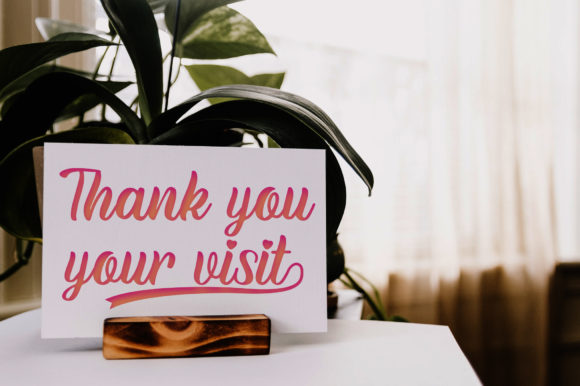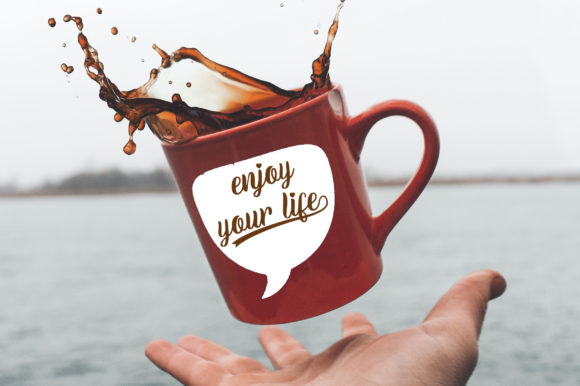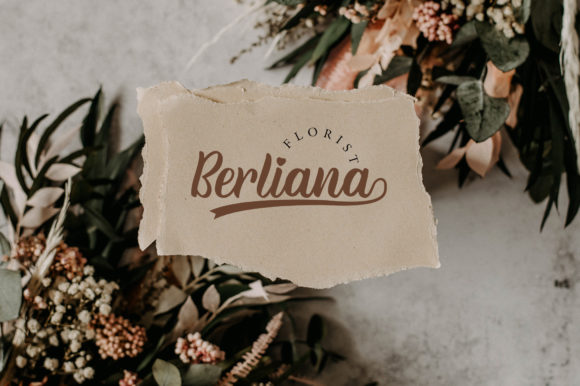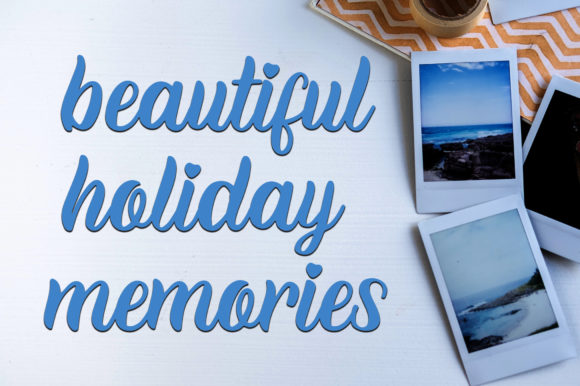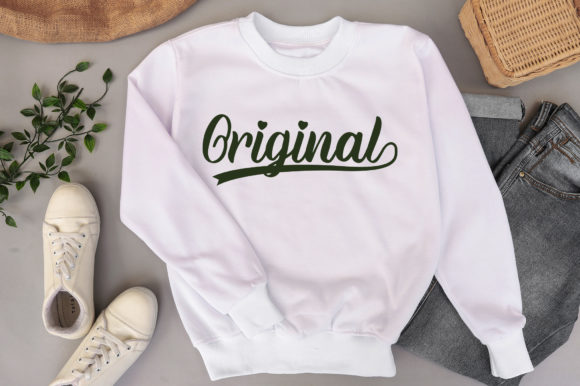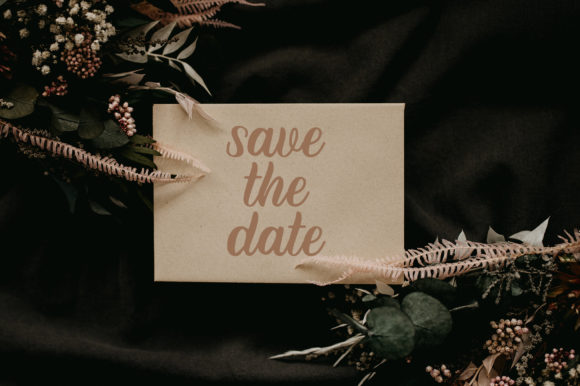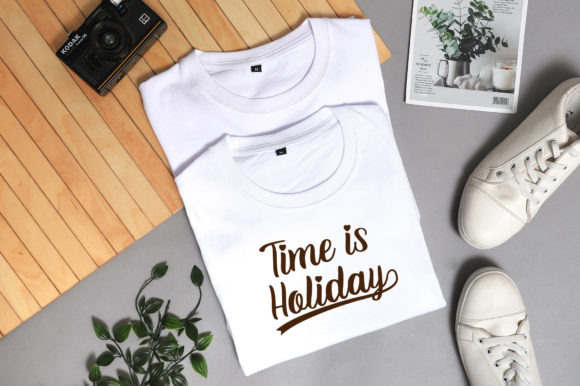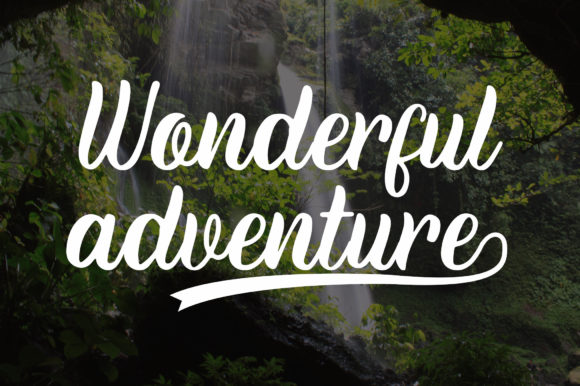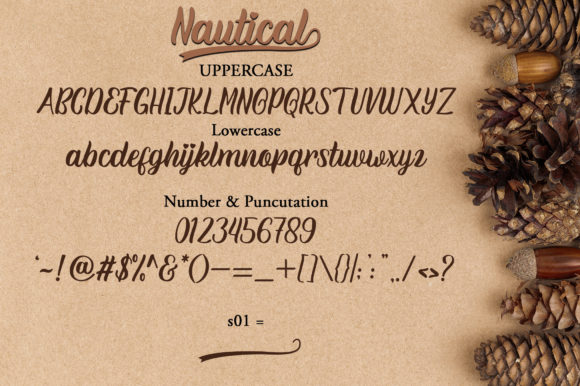
Nautical Font
About Nautical Font
Nautical feels equally charming and elegant. It looks stunning on wedding invitations, thank you cards, quotes, greeting cards, logos, business cards and every other design which needs a handwritten touch.